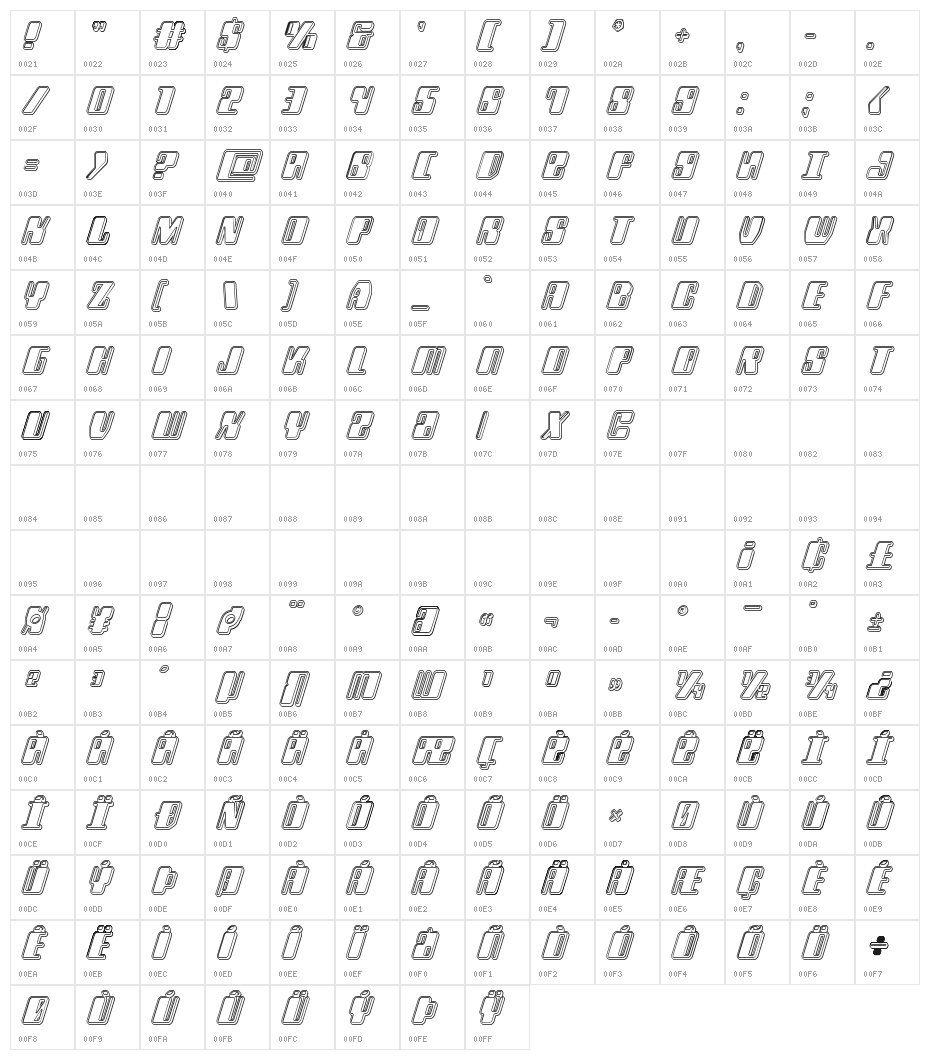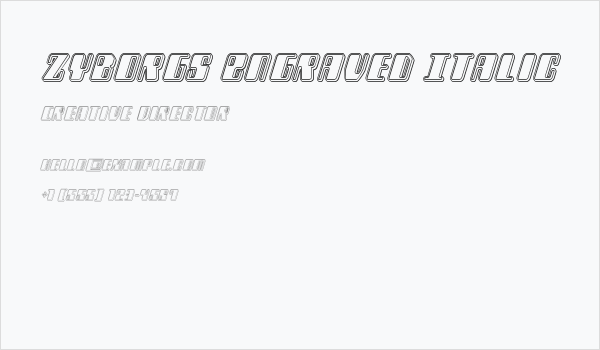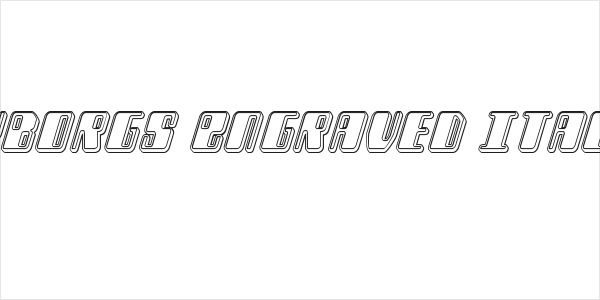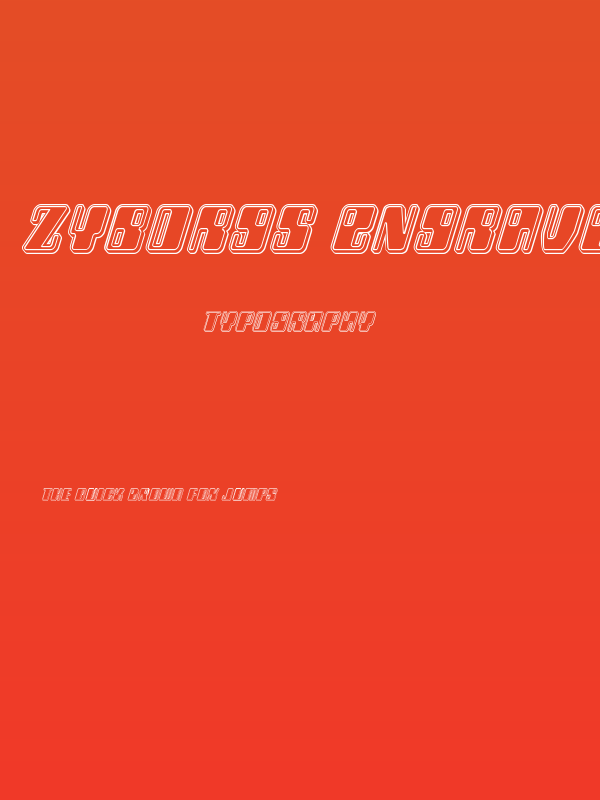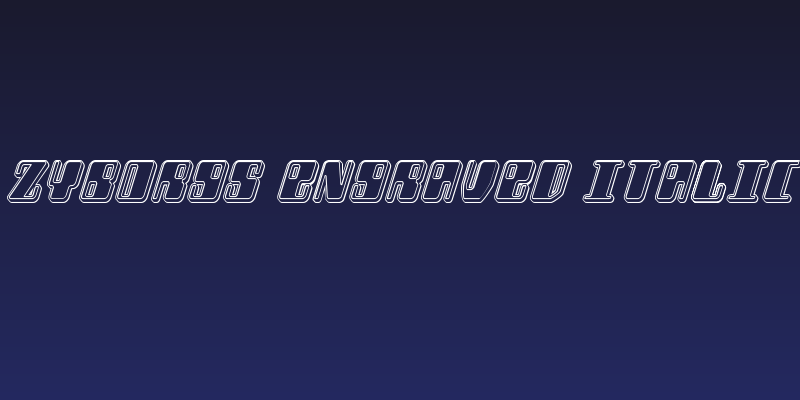
Zyborgs Engraved Italic Font
Zyborgs Engraved Italic Description
This font features a bold, futuristic design with an engraved effect that gives each character a three-dimensional appearance. The italicized style adds a dynamic and forward-leaning posture to the letters, enhancing their modern aesthetic. The characters are outlined with a double line, creating a hollow effect that emphasizes their geometric shapes. This font is highly stylized, making it suitable for attention-grabbing headlines or logos. The uppercase and lowercase letters maintain a consistent style, with the numbers and special characters following the same engraved theme. The overall design is clean and precise, with a strong emphasis on angular lines and sharp edges.
| Proposed Projects | Ideal for sci-fi themed projects, tech company logos, video game titles, or futuristic posters. |